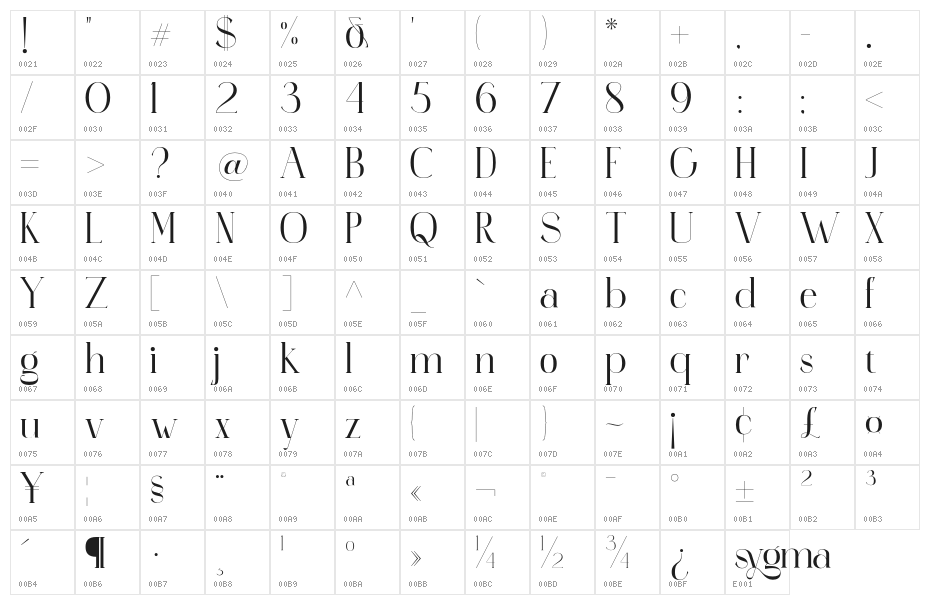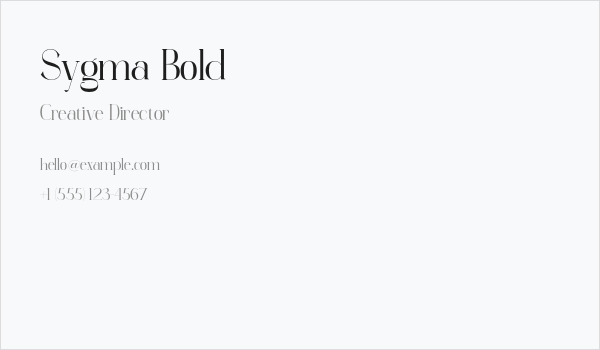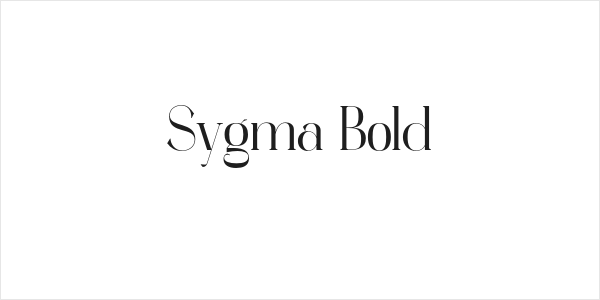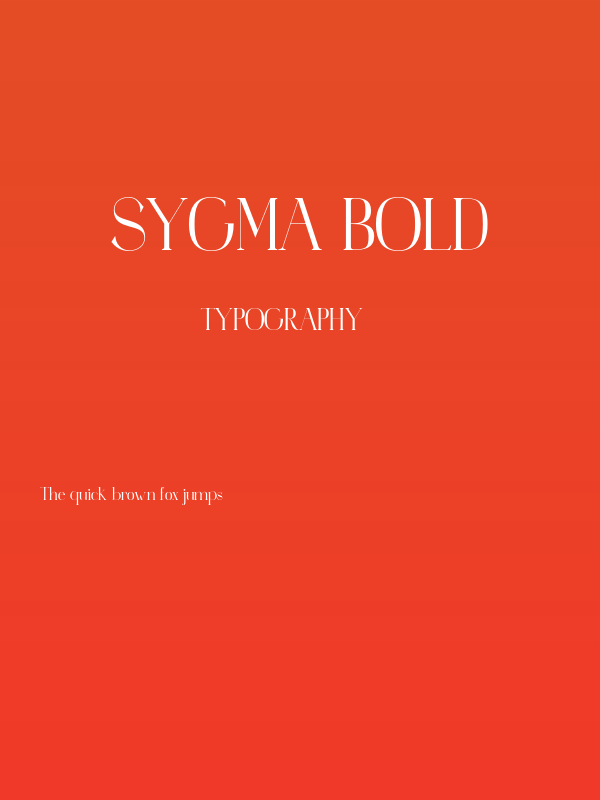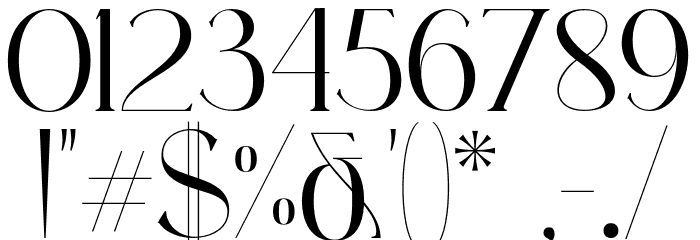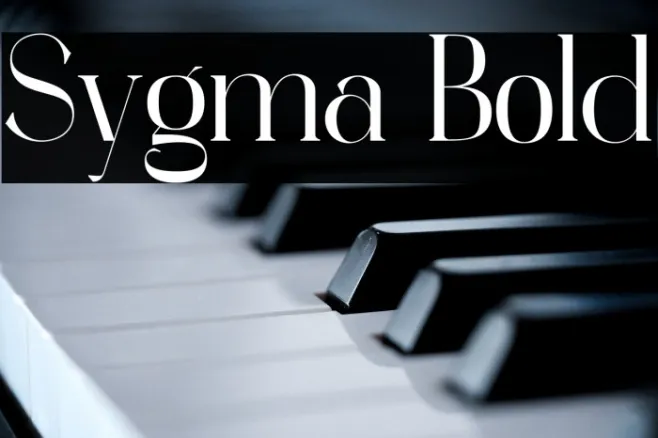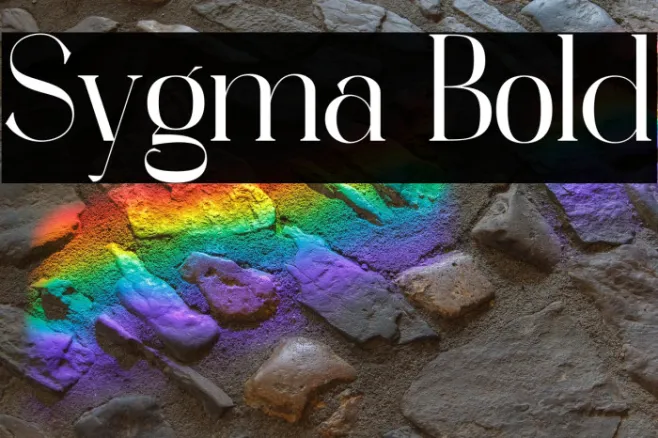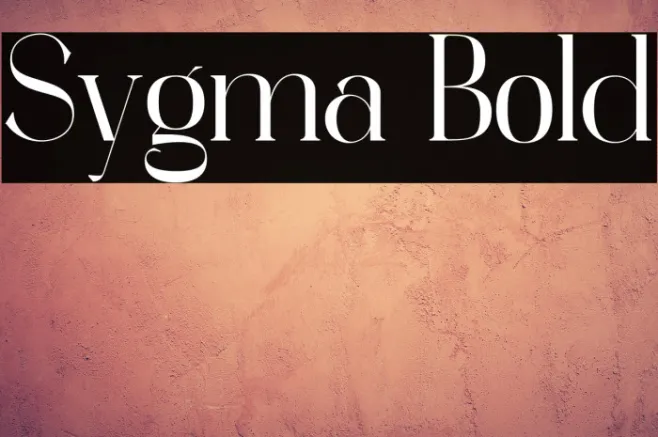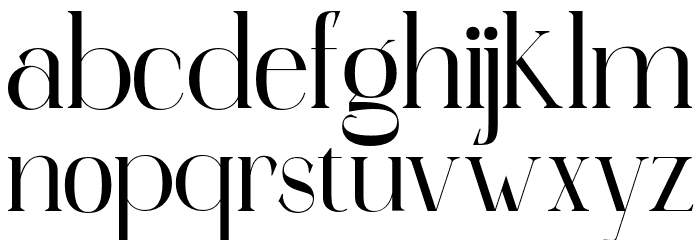
Sygma Bold Font
Sygma Bold Description
This font exhibits a modern and elegant style with a high contrast between thick and thin strokes. The uppercase letters are tall and slender, giving a sophisticated appearance, while the lowercase letters maintain a consistent flow with subtle curves. The numerals are distinct and align well with the overall aesthetic, providing clarity and readability. Special characters are designed with a unique flair, adding to the font's decorative quality. The overall design is sleek and stylish, suitable for a variety of creative applications.
| Use Case | Headlines, Logos, Editorial design |
| Proposed Projects | Ideal for luxury branding, editorial design, fashion magazines, and high-end product packaging. |